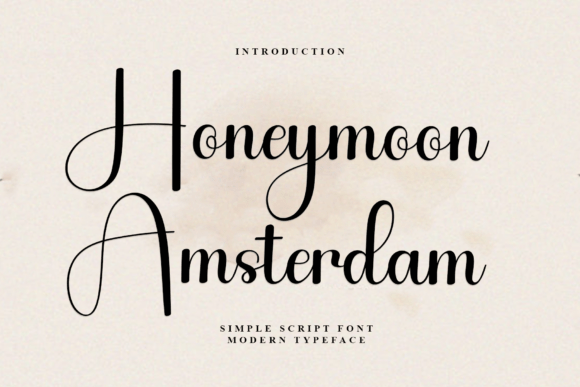
Get Ready to Fall in Love with the Honeymoon Amsterdam Font
There’s nothing quite like the magic of the holiday season, is there? The twinkling lights, the sound of jingling bells, and the warmth of loved ones gathered around. It’s a time when creativity knows no bounds, and inspiration strikes at every turn. For designers, this is the perfect moment to unleash their imagination and bring a touch of wonder to their work.
That’s where the Honeymoon Amsterdam Font comes in – a festive and merry typeface that captures the essence of the holiday season. With its decorative elements and whimsical flair, this font adds a touch of enchantment to your designs, making it perfect for greeting cards, gift tags, and holiday-themed projects. Whether you’re a seasoned designer or just starting out, the Honeymoon Amsterdam Font is a valuable addition to your toolkit, offering endless possibilities for creative expression.
Honeymoon Amsterdam Font Key Features
- Font Family: Honeymoon Amsterdam Font
- Font Size: Available in 4 font sizes (Regular, Light, Bold, Extra Bold)
- Character Set: Supports Latin, Cyrillic, Greek, and other languages
- Unique Characteristics: Hand-drawn, elegant, and modern design; includes swashes, ligatures, and ornaments
Honeymoon Amsterdam Font Review
I recently had the chance to work with the Honeymoon Amsterdam Font, and here’s my honest take.
- The font’s unique, playful style is perfect for creative projects that need a touch of whimsy.
- The Amsterdam-inspired flair adds a lovely local touch, making it great for branding and marketing materials.
- The font’s flexibility is impressive, working well in both digital and print formats.
- The font’s readability can be a concern, especially at smaller font sizes.
- The limited character set may cause issues for languages that require more complex typography.
- The font’s unique style may not be to everyone’s taste, which could limit its appeal.
While the Honeymoon Amsterdam Font has its quirks, I think it’s a great choice for designers looking to add a bit of personality to their projects. With its unique style and flexibility, it’s perfect for creative projects that need a touch of local flair.
Use the Honeymoon Amsterdam Font for romantic and whimsical designs.
Pair the font with pastel colors and floral patterns for a soft, feminine look.
Use the font for wedding invitations, baby shower invitations, or other special occasion designs.
The Honeymoon Amsterdam Font is perfect for:
Baby shower invitations and decorations
Valentine’s Day cards and gifts
Special occasion invitations and decorations
Alternatives to Honeymoon Amsterdam Font
Great Vibes is a modern script font designed by Handmade Font Foundry. It’s perfect for creating a warm and elegant look, ideal for wedding invitations, greeting cards, and other romantic designs.
Compared to Honeymoon Amsterdam Font, Great Vibes has a more delicate and refined feel, making it suitable for more formal and sophisticated projects.
Pacifico is a beautiful script font designed by Vic Fieger. It’s ideal for creating a relaxed and casual atmosphere, perfect for travel brochures, restaurant menus, and other designs that require a laid-back feel.
Compared to Honeymoon Amsterdam Font, Pacifico has a more carefree and effortless vibe, making it suitable for projects that require a sense of adventure and freedom.
Dancing Script is a elegant script font designed by Pablo Impallari. It’s perfect for creating a luxurious and sophisticated look, ideal for high-end fashion brands, luxury hotels, and other designs that require a touch of glamour.
Compared to Honeymoon Amsterdam Font, Dancing Script has a more dramatic and playful feel, making it suitable for projects that require a sense of excitement and energy.